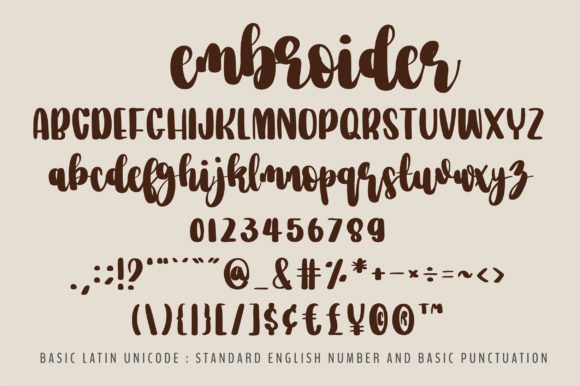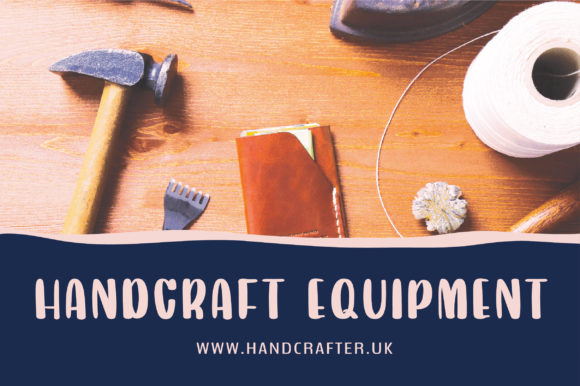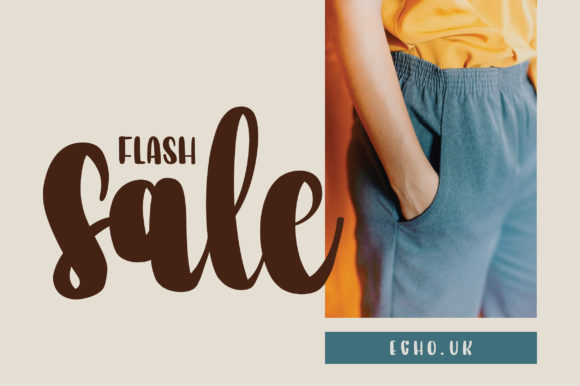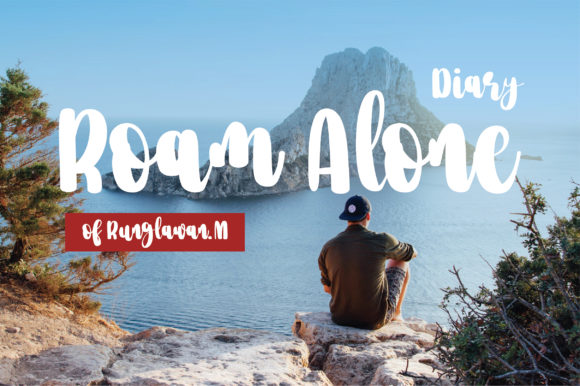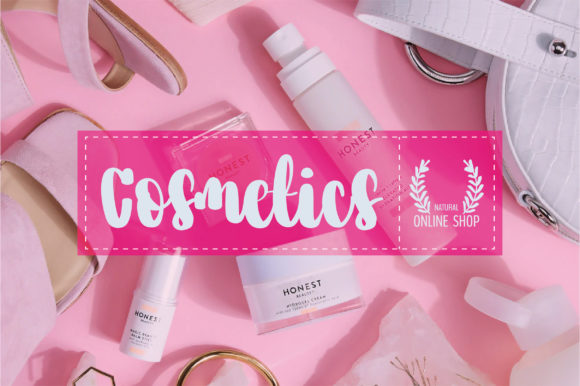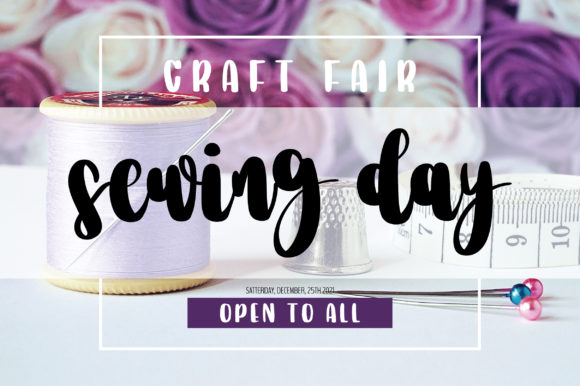
Introducing Embroider Font: The Sweet and Cute Handwritten Font for Crafting Projects
Are you a designer or crafter looking for a font that can add a romantic touch to your projects? Look no further than Embroider Font! This sweet and cute handwritten font is perfect for a variety of crafting projects, from DIY signs and cards to scrapbooking and more.
What is Embroider Font?
Embroider Font is a beautiful, hand-written font that is designed to resemble embroidered letters. Its delicate and intricate lines give it a charming, homespun feel that is sure to capture the hearts of crafters and designers alike. The font is highly legible and versatile, making it suitable for a wide range of projects, from personal stationery to commercial branding.
Key Features of Embroider Font
- Handwritten style: Embroider Font has a natural, handwritten look that gives it a personal and unique feel.
- Delicate lines: The font’s intricate lines and curves give it a beautiful, embroidered appearance.
- High legibility: Despite its delicate lines, Embroider Font is highly legible, even at small sizes.
- Versatility: The font is suitable for a wide range of projects, from personal crafting projects to commercial branding and advertising.
Uses for Embroider Font
Embroider Font is a versatile font that can be used for a variety of crafting projects, including:
- DIY signs and cards: Add a personal touch to your signs and cards with Embroider Font’s charming, handwritten style.
- Scrapbooking: Use Embroider Font to add captions and journaling to your scrapbook pages.
- Stationery and invitations: Create beautiful, personalized stationery and invitations with Embroider Font.
- Branding and advertising: Use Embroider Font to add a touch of elegance and sophistication to your branding and advertising materials.
Tips for Using Embroider Font
Here are a few tips for using Embroider Font in your crafting projects:
- Pair with other fonts: Embroider Font pairs well with other fonts, such as sans-serif fonts and script fonts.
- Use in combination with images: Embroider Font looks beautiful when used in combination with images, such as photographs and illustrations.
- Experiment with colors: Embroider Font looks great in a variety of colors, from bold and bright to soft and pastel.
Embroider Font is a beautiful, sweet and cute handwritten font that is perfect for adding a romantic touch to any crafting project. Its delicate lines and charming, homespun feel make it a versatile font that can be used for a wide range of projects, from personal stationery to commercial branding. Whether you’re a designer or crafter, Embroider Font is sure to become a favorite in your font collection.